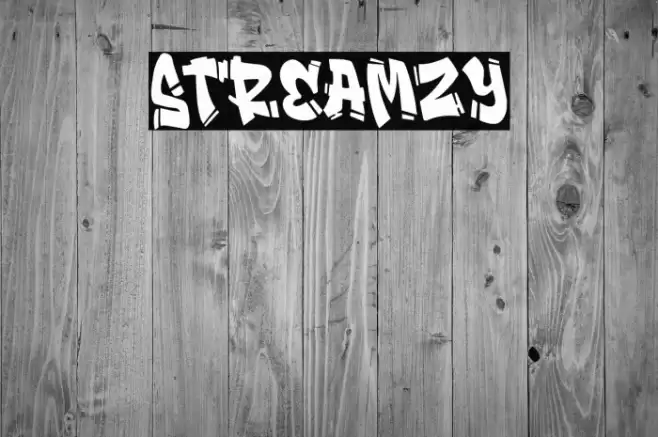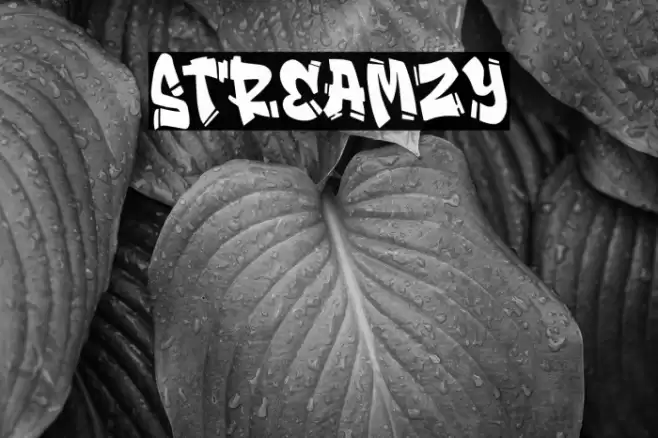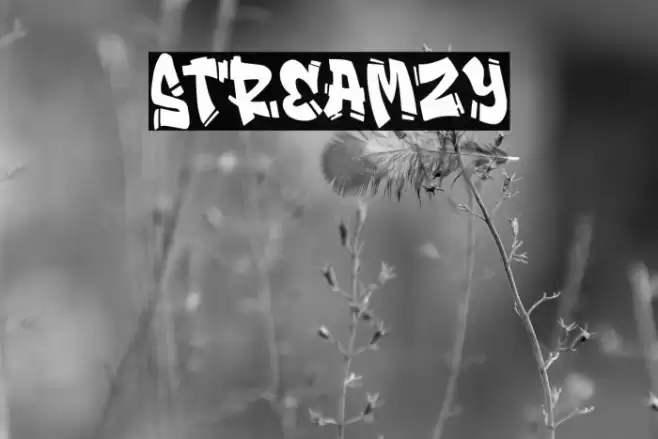
Streamzy Font
Streamzy Description
This font features a bold, graffiti-inspired style with jagged edges and a dynamic, energetic appearance. The characters are heavily stylized, with irregular cuts and angles that give a sense of movement and urban flair. The uppercase and lowercase letters maintain a consistent design, while the numerals and special characters complement the overall aesthetic. The font's unique look makes it stand out, ideal for projects that require a strong visual impact.
A bold, graffiti-inspired font with jagged edges and dynamic style from Regular fonts.
- Proposed Projects: Perfect for street art designs, music album covers, event posters, and urban-themed branding.
- Overall Style: Urban, Energetic, Graffiti